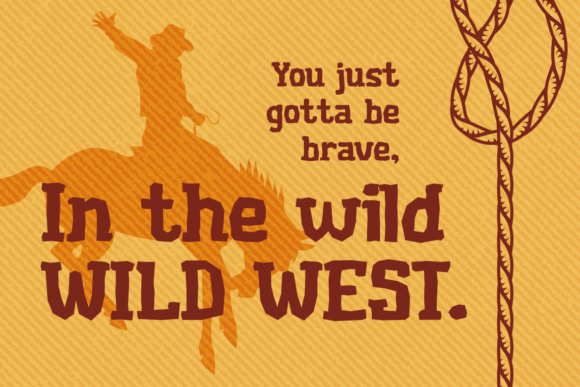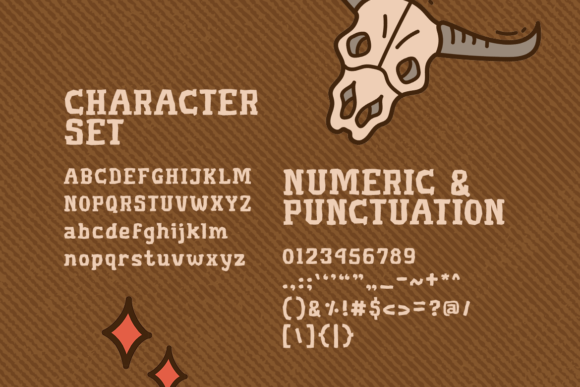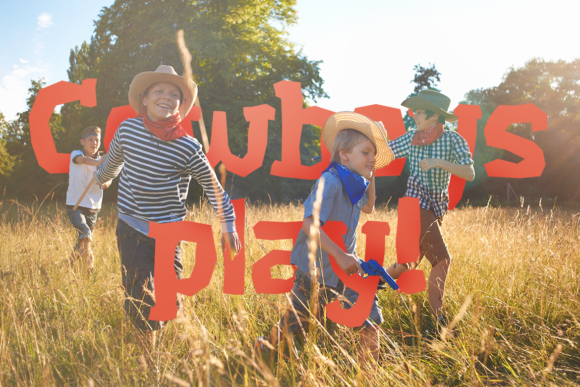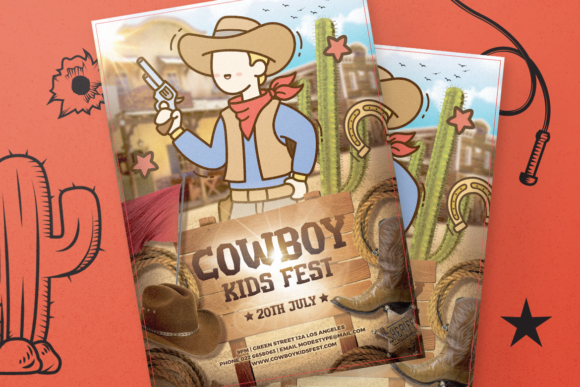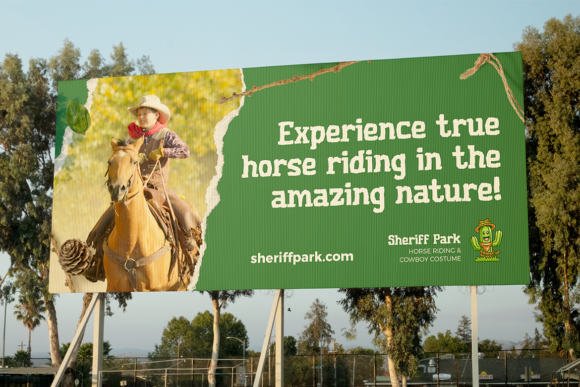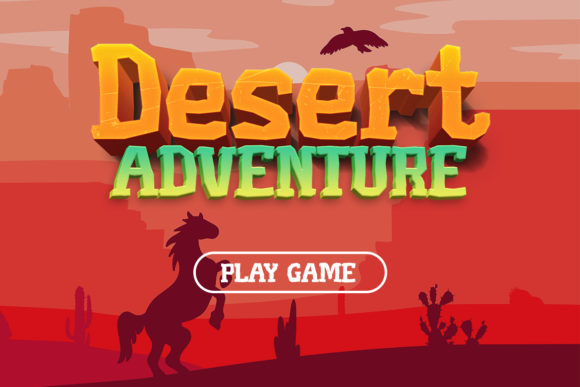
Introducing Deputy Jack Font: The Cool, Casual, and Vintage-Styled Display Font for Fun Designs
Are you a designer or crafter looking for a font that can add a touch of playfulness and nostalgia to your projects? Look no further than Deputy Jack Font! This cool, casual, and vintage-styled display font is perfect for a variety of design ideas, especially those related to children’s parties or school projects. In this article, we’ll dive into the features and benefits of Deputy Jack Font, and explore how you can use it to create engaging and visually appealing designs.
What is Deputy Jack Font?
Deputy Jack Font is a display font designed to evoke a sense of nostalgia and playfulness. Its vintage style is reminiscent of classic children’s books and movies, making it an excellent choice for designs aimed at kids or those with a youthful vibe. The font’s casual and cool demeanor also makes it suitable for a wide range of design projects, from party invitations and decorations to school materials and crafts.
Key Features of Deputy Jack Font
- Unique Vintage Style: Deputy Jack Font boasts a distinctive vintage aesthetic that sets it apart from more modern fonts. Its classic look is perfect for designs that require a nostalgic feel.
- Highly Legible: Despite its vintage style, Deputy Jack Font is highly legible, making it suitable for use in a variety of contexts, from large display headings to smaller body text.
- Versatile: This font is incredibly versatile and can be used for a wide range of design projects, including children’s party invitations, school materials, crafts, and more.
Using Deputy Jack Font for Children’s Party Designs
Deputy Jack Font is an excellent choice for children’s party designs, including invitations, decorations, and party favors. Its playful and nostalgic style is sure to delight kids and parents alike. Here are a few ideas for using Deputy Jack Font in children’s party designs:
- Party Invitations: Create custom party invitations that set the tone for a fun and festive celebration. Use Deputy Jack Font to add a playful touch to your invitation design.
- Decorations: Use Deputy Jack Font to create custom banners, garlands, and other decorations that add a personal touch to your party.
- Party Favors: Design custom party favors, such as stickers, coloring books, and activity sheets, using Deputy Jack Font.
Using Deputy Jack Font for School Projects
Deputy Jack Font is also an excellent choice for school projects, including presentations, posters, and worksheets. Its clear and legible style makes it easy to read, while its vintage aesthetic adds a touch of personality to your design. Here are a few ideas for using Deputy Jack Font in school projects:
- Presentations: Use Deputy Jack Font to add a playful touch to your presentation slides. Its clear and legible style makes it easy to read, even from a distance.
- Posters: Create eye-catching posters using Deputy Jack Font. Its vintage style is sure to grab the attention of your audience.
- Worksheets: Design engaging worksheets using Deputy Jack Font. Its clear and legible style makes it easy for students to read and complete their work.
Tips for Using Deputy Jack Font
Here are a few tips for getting the most out of Deputy Jack Font:
- Experiment with Colors: Deputy Jack Font looks great in a variety of colors. Experiment with different color schemes to find the one that works best for your design.
- Mix and Match Fonts: Deputy Jack Font pairs well with a variety of other fonts. Experiment with different font combinations to create a unique and visually appealing design.
- Use it Creatively: Don’t be afraid to think outside the box when using Deputy Jack Font. Use it to create custom illustrations, graphics, and other design elements.
In conclusion, Deputy Jack Font is a versatile and fun font that’s perfect for designers and crafters looking to add a touch of playfulness and nostalgia to their projects. Its unique vintage style, high legibility, and ease of use make it an excellent choice for a wide range of design ideas, from children’s party designs to school projects. So why not give Deputy Jack Font a try and see how it can elevate your designs?
| Font Name | Deputy Jack Font |
| Author | Modestype Studio |